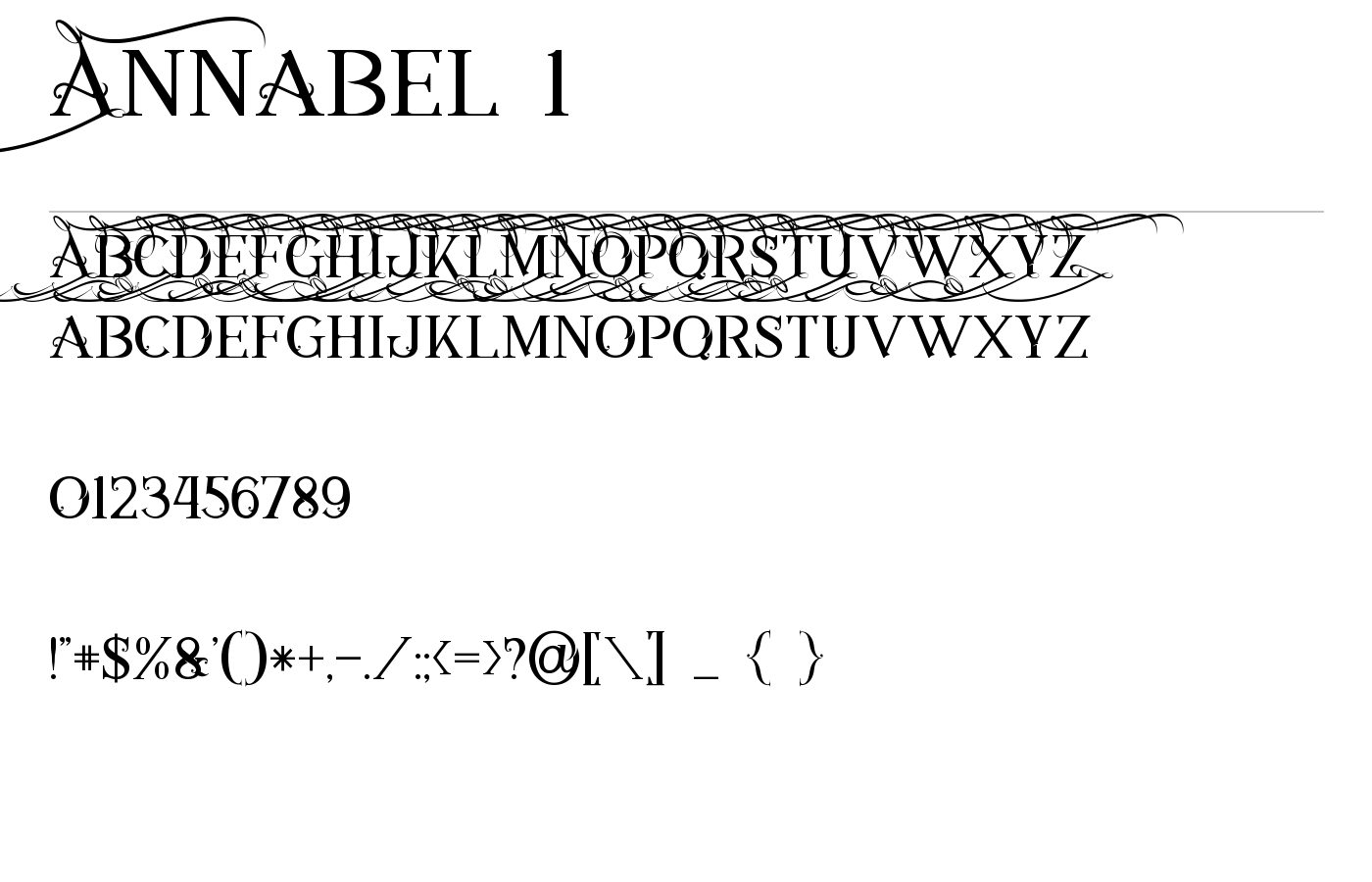
Annabel 1 is an elegant serif font with a delicate, high-contrast design and refined, bracketed serifs that evoke a classic, sophisticated feel. Its uppercase characters feature graceful flourishes and ornamental swashes, making it perfect for luxury branding, invitations, or editorial headlines where a touch of artistry and formality is desired. This font works best in display settings, adding a timeless and decorative flair to projects that seek to impress with elegance and style.
Annabel 1 Font
About Annabel 1 Font